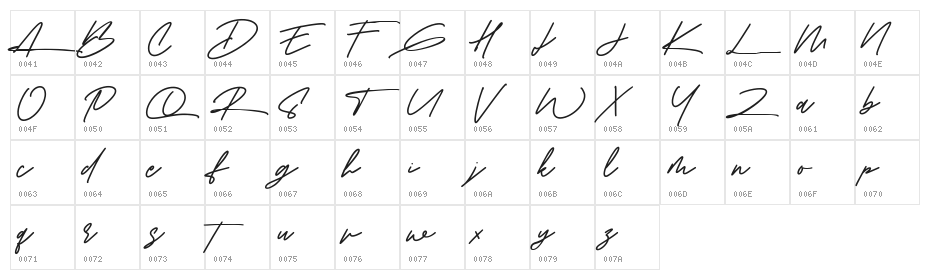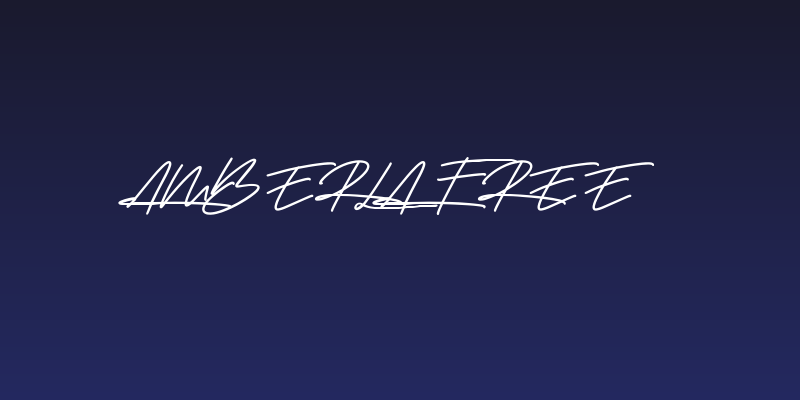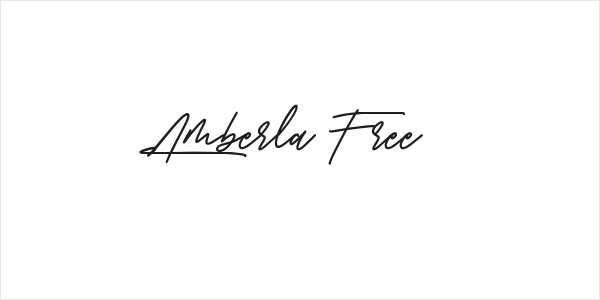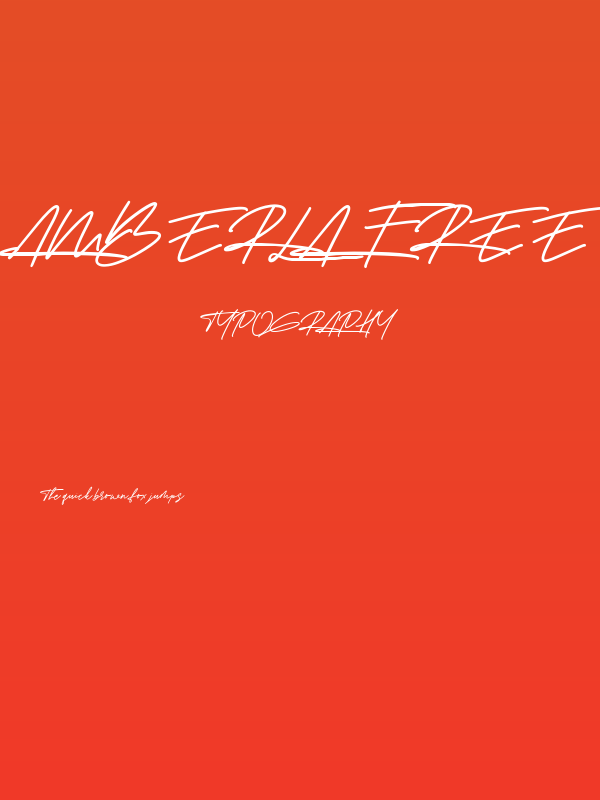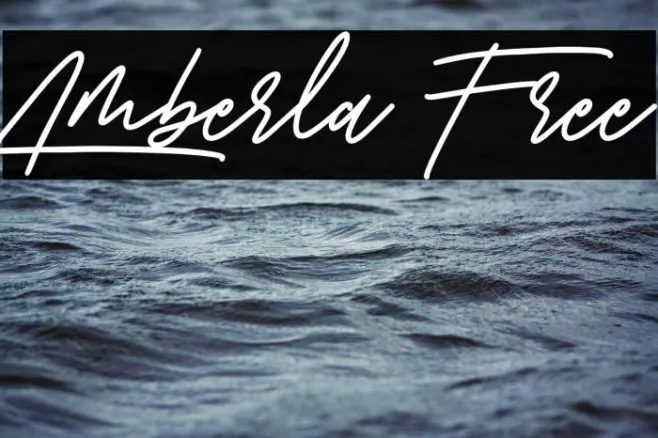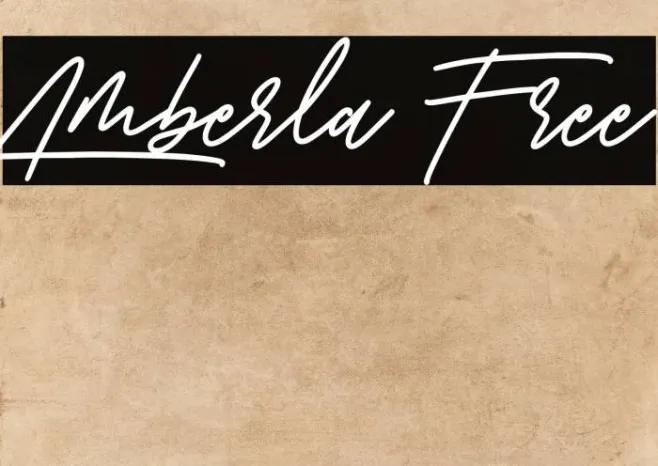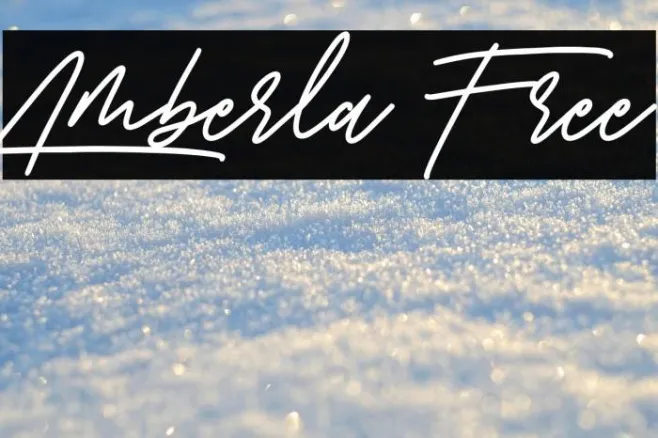
Amberla Free Font
Amberla Free Description
This font features a dynamic and fluid script style, characterized by its elegant, flowing lines and cursive letterforms. The uppercase letters are slightly more angular, adding a touch of modernity, while the lowercase letters maintain a classic cursive appearance. The strokes are smooth and connected, creating a sense of movement and grace. This font is perfect for conveying a personal, handwritten feel, making it ideal for invitations, branding, and creative projects. The overall look is both sophisticated and approachable, with a hint of artistic flair.
| Use Case | Logos, Invitations, Creative projects |
| Proposed Projects | Ideal for wedding invitations, personal branding, greeting cards, and artistic projects. |